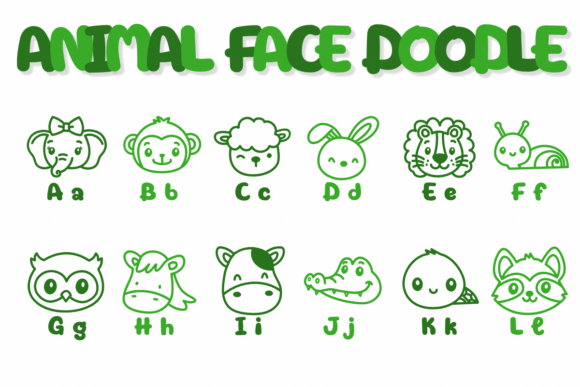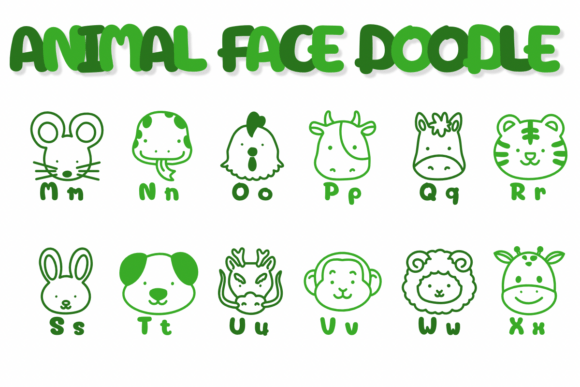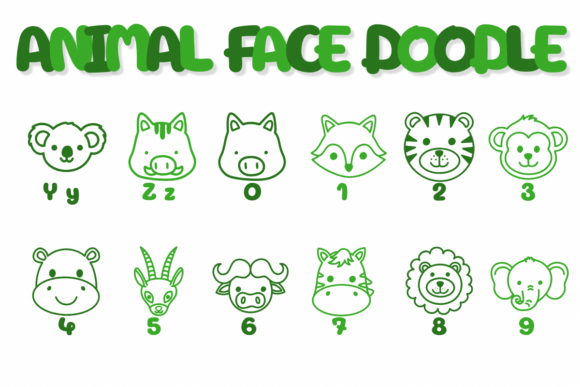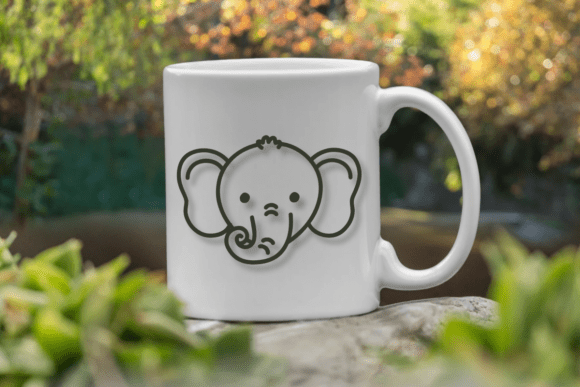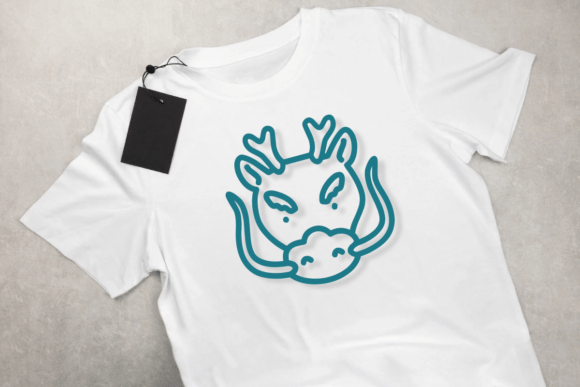
Bring Joy to Your Designs with the Animal Face Doodle Font
Who hasn’t found themselves doodling in the margins of a notebook or sketchbook as a child? For many creatives, those carefree moments of self-expression are a cherished memory that never truly fade. And what’s more expressive than doodling adorable animal faces? The Animal Face Doodle Font brings this whimsical world to your design projects, infusing them with a playful touch that’s sure to delight.
This delightful dingbats font is filled with charming animal head illustrations, from majestic lions to wise owls. Its purpose is to add a lighthearted, educational twist to kids’ projects, logo accents, educational worksheets, and product packaging. As a designer, you’ll appreciate the versatility of the Animal Face Doodle Font, which can add a personal touch to your work while also making complex ideas more engaging and accessible.
Key Features of Animal Face Doodle Font
- Unique Characteristic: Whimsical animal faces designed in a doodle style, perfect for adding a playful touch to designs.
- Size: The font comes in a single weight, with a character set that includes uppercase and lowercase letters, numbers, and punctuation marks.
- Character Count: The font contains a comprehensive set of characters, including over 150 animal faces, making it ideal for creating unique and engaging designs.
- Style: The doodle style of the font is characterized by its simplicity, playfulness, and hand-drawn feel, adding a personal touch to designs.
Designer Review: Animal Face Doodle Font
As a designer, I was excited to dive into the “Animal Face Doodle Font” and see what it had to offer. Here’s my honest review:
- The font is perfect for adding a playful touch to children’s books, educational materials, and websites.
- The variety of animal faces (over 100) will keep your designs fresh and interesting.
- The font is well-documented, making it easy to use and customize.
- The font may not be suitable for formal or professional designs, as it can come across as too casual.
- The quality of the font can vary depending on the size and resolution it’s used at.
Overall, I think the “Animal Face Doodle Font” is a great choice for designers looking to add a fun and playful touch to their projects. While it may have some limitations, it’s a valuable addition to any designer’s toolkit.
The Animal Face Doodle Font is ideal for:
- Children’s book illustrations and designs.
- Party invitations and decorations.
- Quirky blog and social media content.